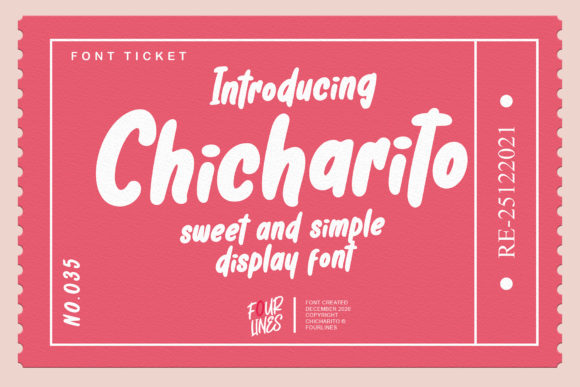
Dive into the world of captivating typography with Chicharito, the display font that's set to redefine your creative expression. Handcrafted by Fourline.design, this thick-lettered marvel is a visual symphony, ready to dance across your screens and leave a lasting impression.
Chicharito is not just a font; it's a gateway to a world of boundless creativity, where your imagination takes center stage. Whether you're crafting logos that demand attention, designing packaging that exudes elegance, or creating quotes that resonate with your audience, Chicharito is your ultimate companion.
With its bold and playful curves, Chicharito adds a touch of whimsy to any project. Its thick strokes command attention, while its carefully crafted details add depth and intrigue. It's the perfect font for making a statement, whether you're designing for social media, print, or web.
Step into the spotlight with Chicharito and let your creativity shine. Transform your ideas into stunning visuals that captivate and inspire. Join the ranks of design enthusiasts who have embraced Chicharito's charm and witnessed their creative visions come to life.
With Chicharito, the possibilities are endless. Explore the font's versatility and let your imagination run wild. From eye-catching headlines that demand attention to elegant body text that flows effortlessly, Chicharito adapts seamlessly to your every need.
Don't settle for ordinary fonts that blend into the background. Choose Chicharito and embark on a typographic adventure that will leave your audience spellbound. Let your designs speak volumes and make a lasting impact with every stroke of this remarkable font.